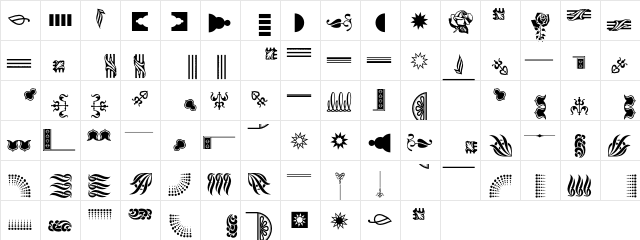
BordersOrnament 2 Regular
BordersOrnament 2 brings ornamental detail and strong personality to headlines and identities, where visual impact matters more than quiet functionality.
Font Pairing: Pair with a clean neutral sans-serif for body copy to let BordersOrnament 2's character lead without overwhelming the composition.
Pro Tip: Treat BordersOrnament 2 as the centrepiece of your typographic hierarchy. One strong heading set in a decorative face can carry an entire layout.